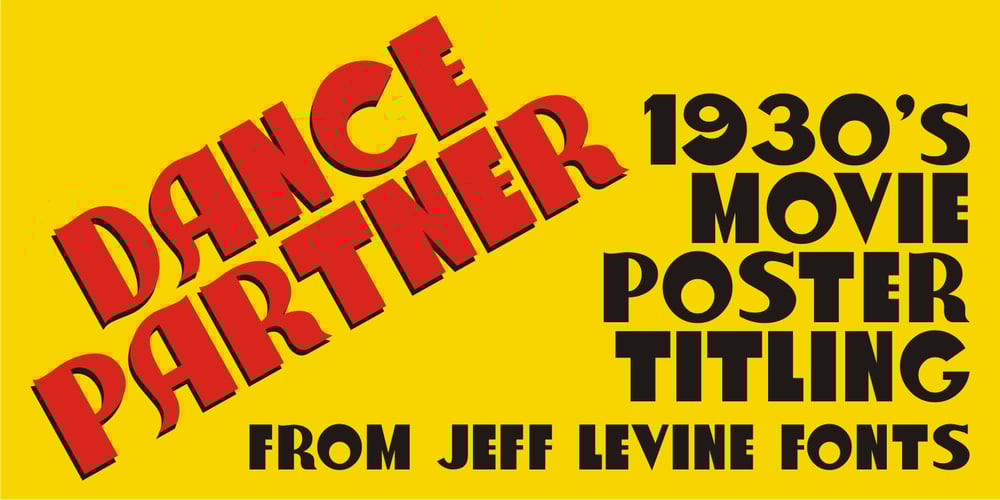
Dance Partner JNL
Dance Partner JNL font
Dance Partner JNL Font Family was designed by Jeff Levine and published by Jeff Levine. Dance Partner JNL contains 1 styles and family package options. The unusual mix of Art Deco lettering with a smattering of Art Nouveau characters found within Dance Partner JNL comes from a movie poster for the 1935 RKO picture “Roberta” starring Fred Astaire and Ginger Rogers. The musical was based on the hit 1933 stage play that introduced the song “Smoke Gets in Your Eyes”. The play itself was based on the Alice Duer Miller novel “Gowns by Roberta”.